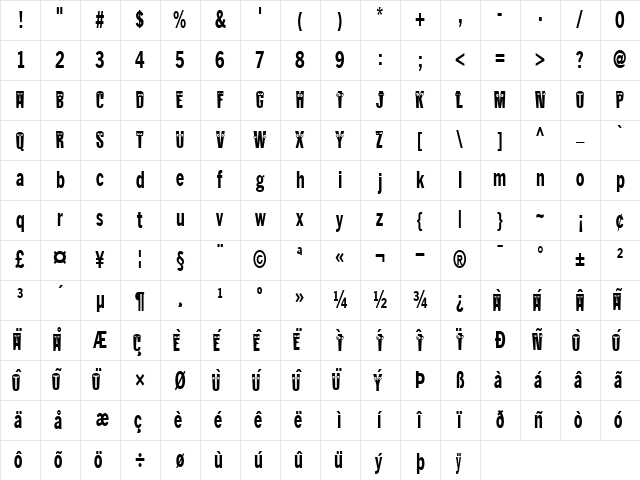
KABlokHeadJam Regular
Design Context for KABlokHeadJam
KABlokHeadJam is a composed and adaptable typeface that performs quietly and consistently across a wide range of design contexts.
Pro Tip: Use KABlokHeadJam in both headline and body roles to test its range before committing to a single application.